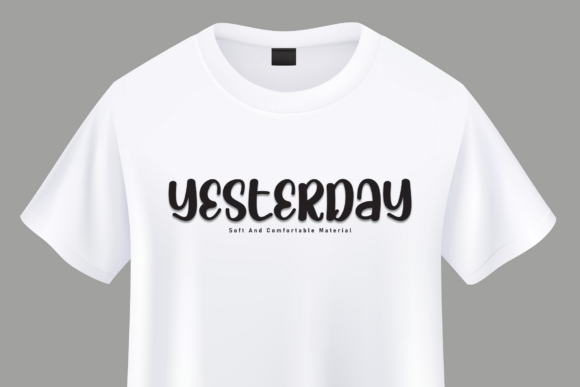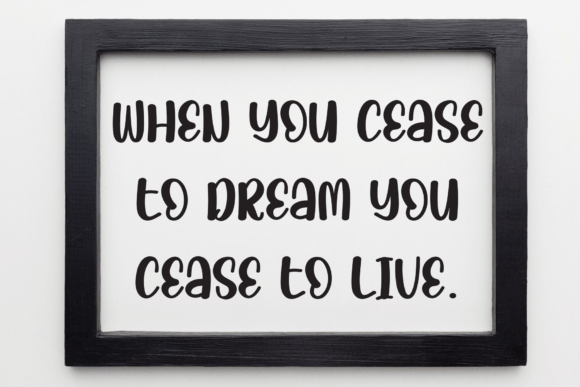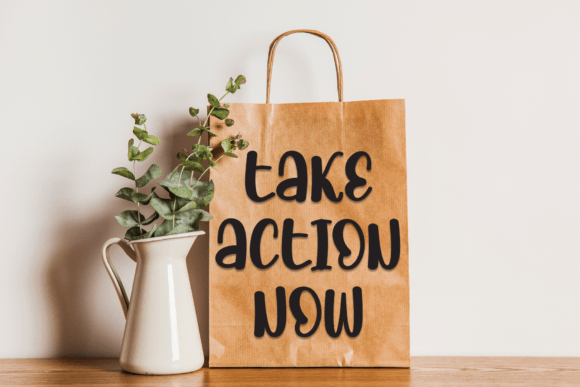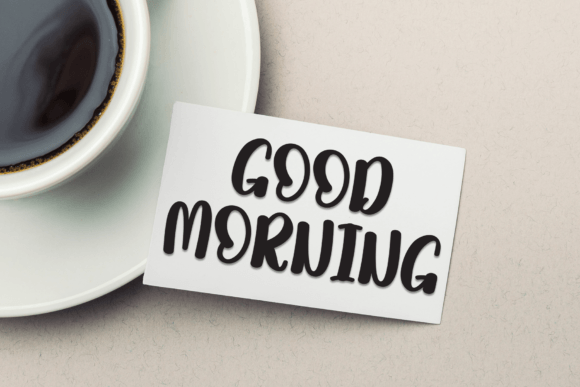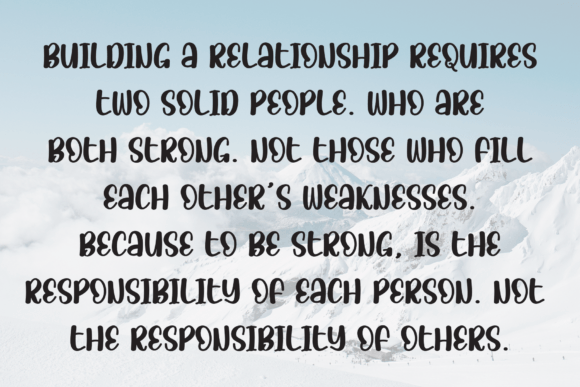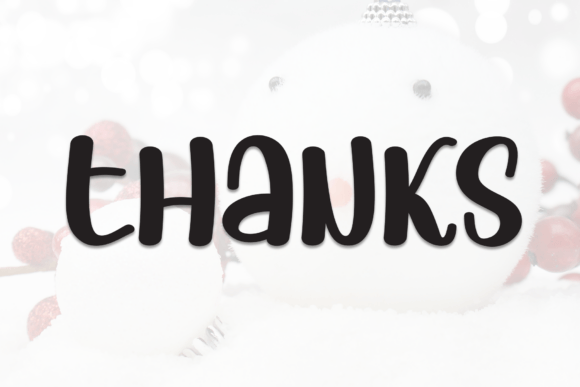
Creating Whimsical Magic with Beauty Snowman Font
Have you ever been rummaging through your craft room, searching for the perfect embellishment to add a dash of personality to your handmade card? The feeling of excitement as you discover a new font, a sparkly sticker, or a colorful button is truly unmatched. It’s in these moments of creative discovery that we remember why we love making things – the joy of bringing our imagination to life.
Meet the Beauty Snowman Font, a charming handwritten display font designed to evoke a sense of warmth and friendliness. Its playful and elegant nature makes it the perfect choice for designers looking to add a touch of whimsy to their projects, from wedding invitations to heartfelt cards. With the Beauty Snowman Font, you’ll be able to bring a smile to your audience’s faces and make your designs truly unforgettable.
Key Features of “Beauty Snowman Font”
- Font Style: A unique, hand-drawn, and decorative font with a wintery theme, perfect for holiday and winter-themed designs.
- Character Set: Includes a wide range of characters, including uppercase and lowercase letters, numbers, and special characters, making it versatile for various design applications.
Review: Beauty Snowman Font
Overall, I was intrigued by the whimsical nature of the Beauty Snowman Font. ✨ The font’s playful, childlike feel makes it perfect for creating a festive atmosphere in winter-themed projects. The rounded shapes and delicate details evoke a sense of nostalgia and simplicity.
However, I did encounter some limitations. ⚠️ Firstly, the font’s consistency can be a bit off. At certain sizes, the characters may appear slightly distorted or pixelated. Additionally, the font’s limited character set makes it less versatile for longer texts or more complex projects.
- Unique, whimsical design perfect for winter-themed projects
- Rounded shapes and delicate details evoke a sense of nostalgia
- Perfect for titles, headings, or short texts
- Limited character set may be a limitation for longer texts
- May appear distorted or pixelated at certain sizes
In conclusion, the Beauty Snowman Font is a charming addition to any winter-themed project. While it may not be the most versatile font, its unique design and nostalgic feel make it a great choice for titles, headings, or short texts. ✨
The Beauty Snowman Font is perfect for creating winter-themed designs, such as Christmas cards, gift tags, and social media graphics. It’s also great for adding a touch of whimsy to your branding materials, such as business cards and flyers.
Alternatives to Beauty Snowman Font for Designers
Great Vibes is a beautiful, modern script font that’s perfect for creating a sense of elegance and sophistication. It’s ideal for use in invitations, greeting cards, and other personal projects where a touch of whimsy is needed. Unlike Beauty Snowman Font, Great Vibes has a more refined and polished look, making it suitable for a wider range of applications.
Pacifico is a beautiful, cursive font that’s reminiscent of a tropical paradise. It’s perfect for use in beach-themed projects, summer invitations, and other designs where a relaxed, laid-back vibe is desired. While Beauty Snowman Font has a more playful, childlike quality, Pacifico is more mature and sophisticated, making it a great choice for designers looking for a similar feel.
What is the recommended font size for optimal readability with the Beauty Snowman Font?
The recommended font size for optimal readability with the Beauty Snowman Font is between 12 and 18 points, depending on the intended use and display device. For body text, a font size of 14 points is generally a good starting point. However, feel free to experiment and adjust the font size to suit your specific design needs.